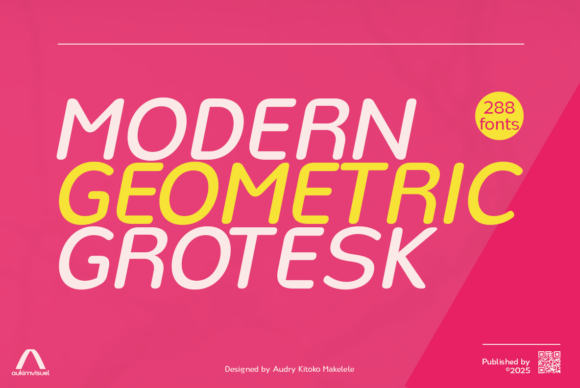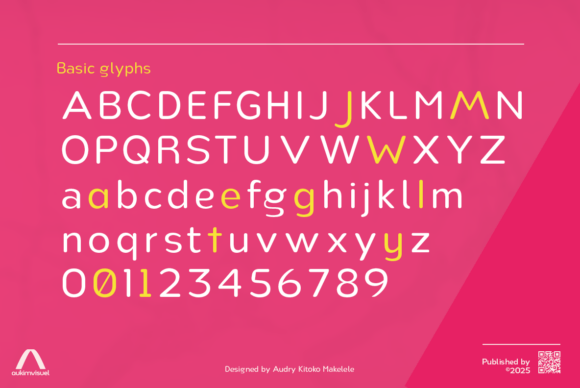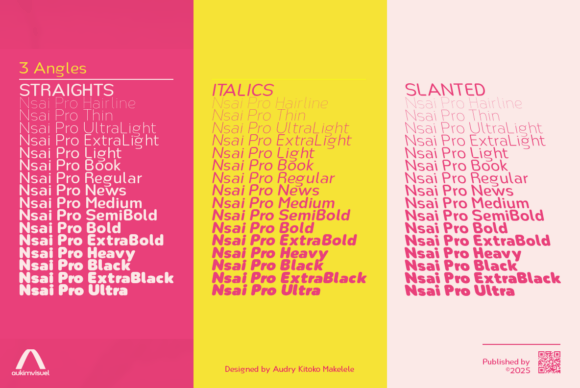
Introduction to Nsai Pro Rounded Font
Imagine a design project where every detail matters, and the right font can make all the difference. You’re pouring your heart and soul into a creative endeavor, and the typeface is the unsung hero that brings your vision to life. This is where Nsai Pro Rounded Font comes in – a game-changing design resource that’s poised to elevate your next project.
As a designer, you know that a high-quality font can be the key to unlocking a truly exceptional visual experience. Nsai Pro Rounded Font is more than just a pretty face; it’s a powerhouse of linguistic coverage, technical performance, and visual elegance. With its rounded terminals and carefully calibrated curves, this font adds a warm, accessible touch to any design project, from editorial and digital to branding and beyond.
Key Features of Nsai Pro Rounded Font
- High-quality, professional font designed for creative projects, ideal for logos, branding, and packaging.
- Features a unique rounded design, perfect for creating a friendly, approachable, and modern aesthetic.
Honest Review: Nsai Pro Rounded Font
What works well about the Nsai Pro Rounded Font is its versatility. It’s perfect for designs that require a touch of sophistication and elegance. The rounded edges give it a friendly and approachable feel, making it ideal for logos, branding materials, and even digital signage.
- High-quality design: The font is well-crafted and looks great on both light and dark backgrounds.
- Transparency: It comes with a transparent background option, making it easy to customize and combine with other design elements.
However, I did encounter a few limitations. The font could benefit from more character styles and weights, especially for more complex design projects. Additionally, the font might not be as effective in very small or very large sizes.
Overall, I’m impressed with the Nsai Pro Rounded Font. It’s a solid addition to any designer’s toolkit, and its free download option makes it a great resource for designers of all levels. While it may have some limitations, its versatility and high-quality design make it a worthwhile choice for any creative project. ✨
Tips for Getting the Most Out of Nsai Pro Rounded Font
Use Nsai Pro Rounded Font in creative projects that require a unique and modern look. Pair it with a transparent background to make it stand out. Experiment with different font sizes and styles to create a visually appealing design.
Nsai Pro Rounded Font is suitable for various design projects, including logos, brochures, business cards, and social media graphics. Its high-quality design and versatility make it an excellent design resource for professionals and non-designers alike.
Is the Nsai Pro Rounded Font suitable for print or digital projects?
The Nsai Pro Rounded Font is a versatile font that can be used for both print and digital projects. It’s designed to be clear and legible at various font sizes, making it suitable for use in a range of creative projects, from business cards and brochures to website headers and social media graphics